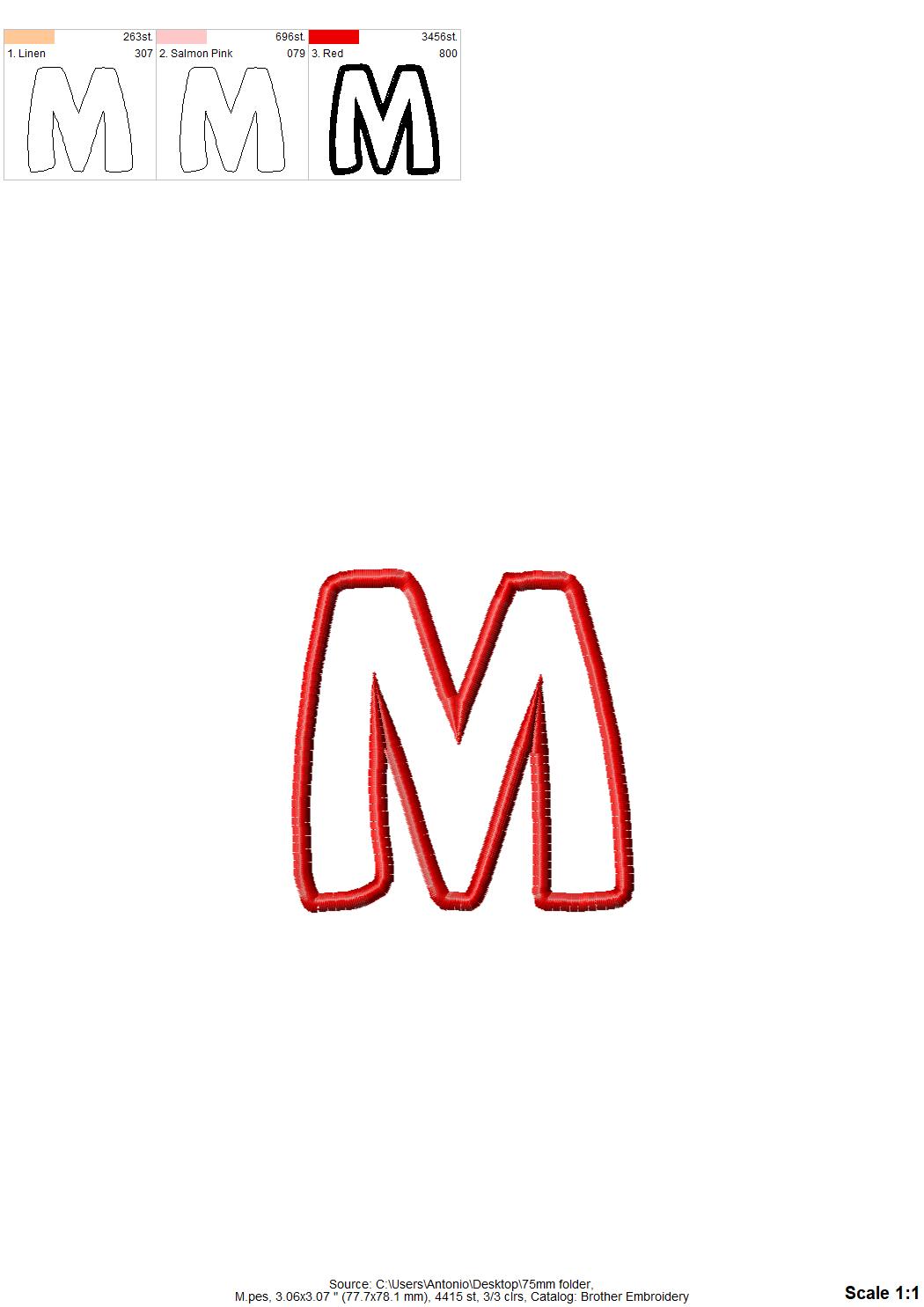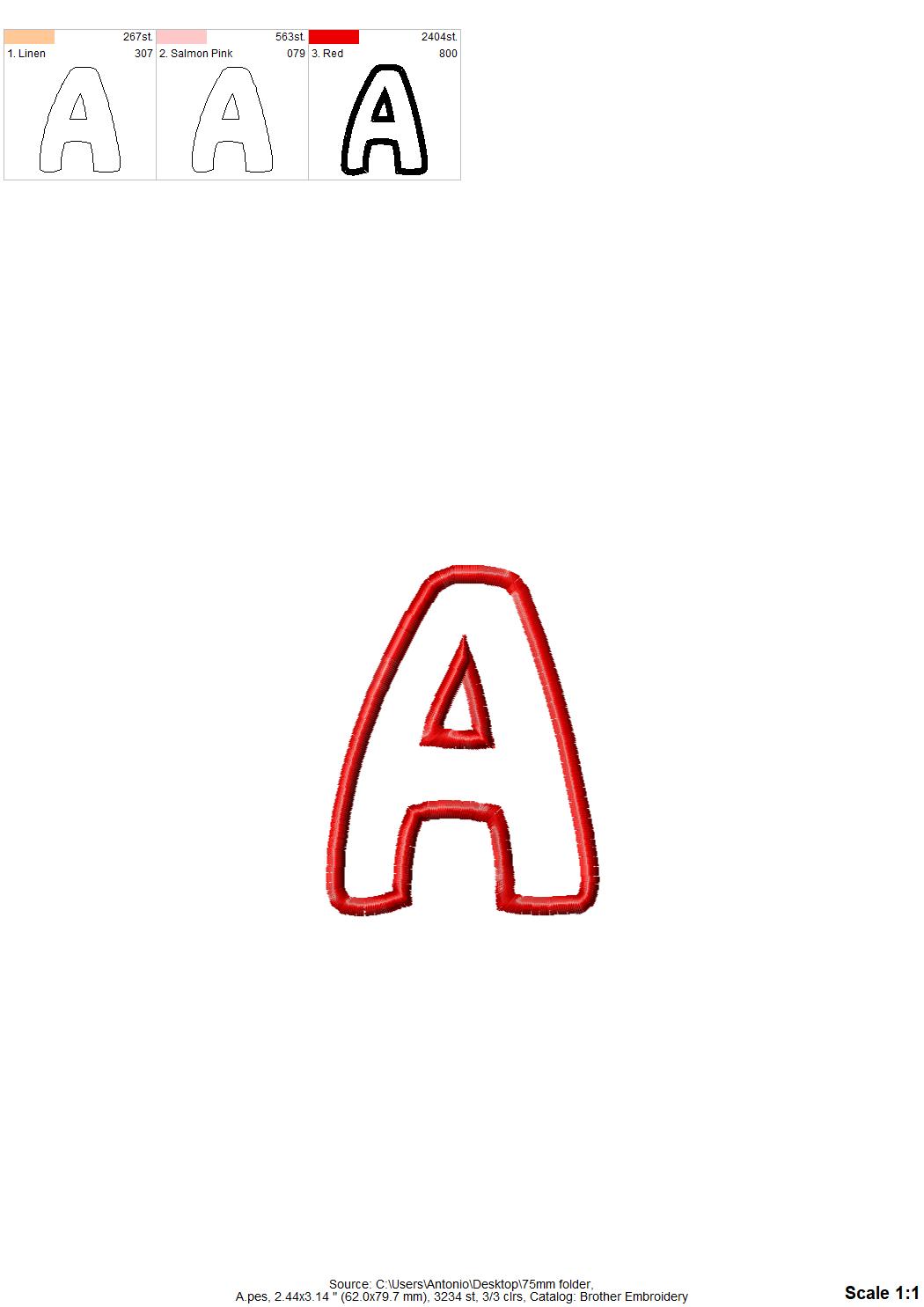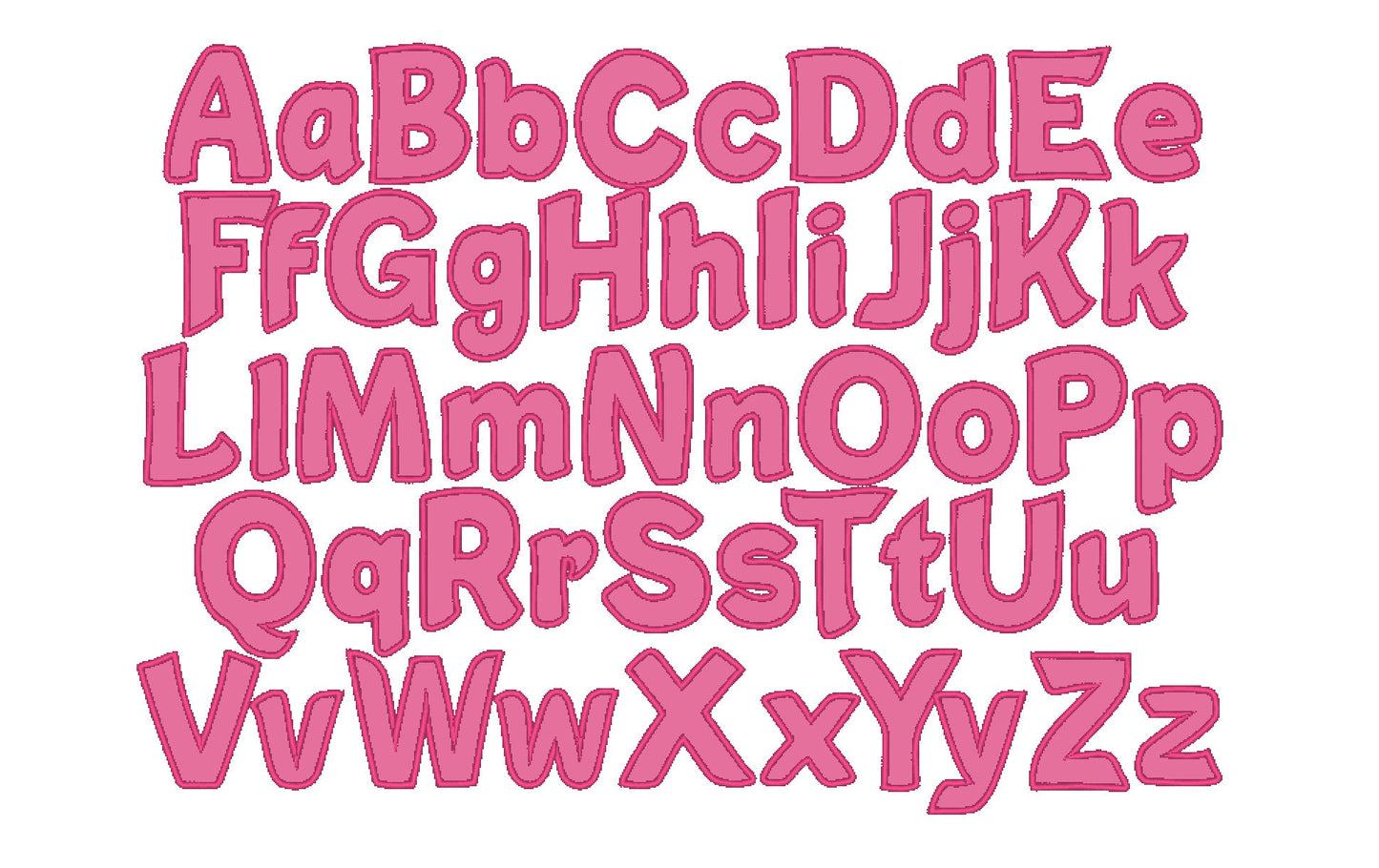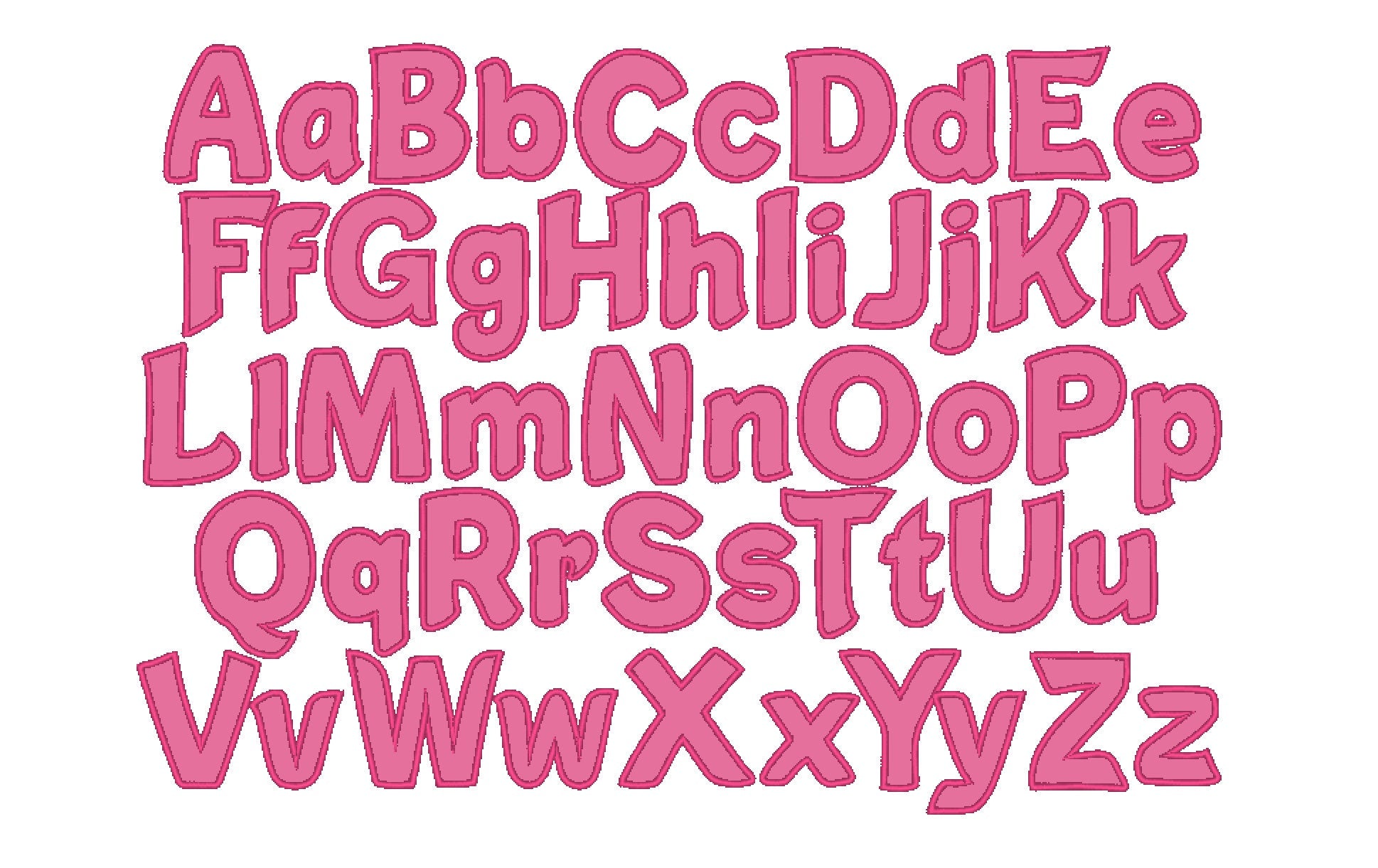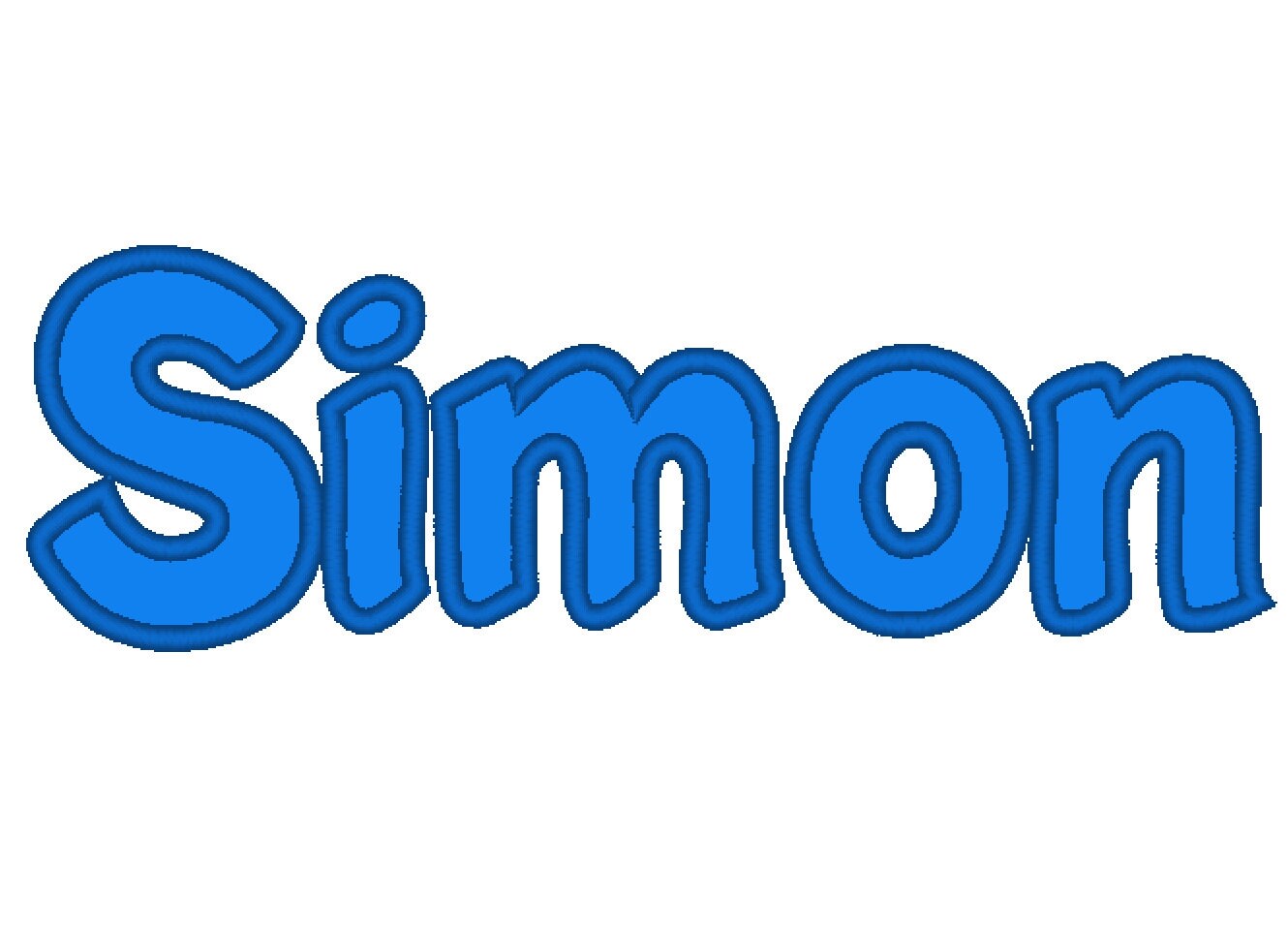
Or click to open the linkSimon, a rounded applique monogram font with a satin stitch outline. Great for kids' names, initials, pillows and baby gifts.
Rounded applique letters finished with a satin stitch outline. Uppercase and lowercase letters A to Z in seven sizes: 1.3, 1.6, 1.9, 2.3, 2.6, 2.9 and 3.1 inches.